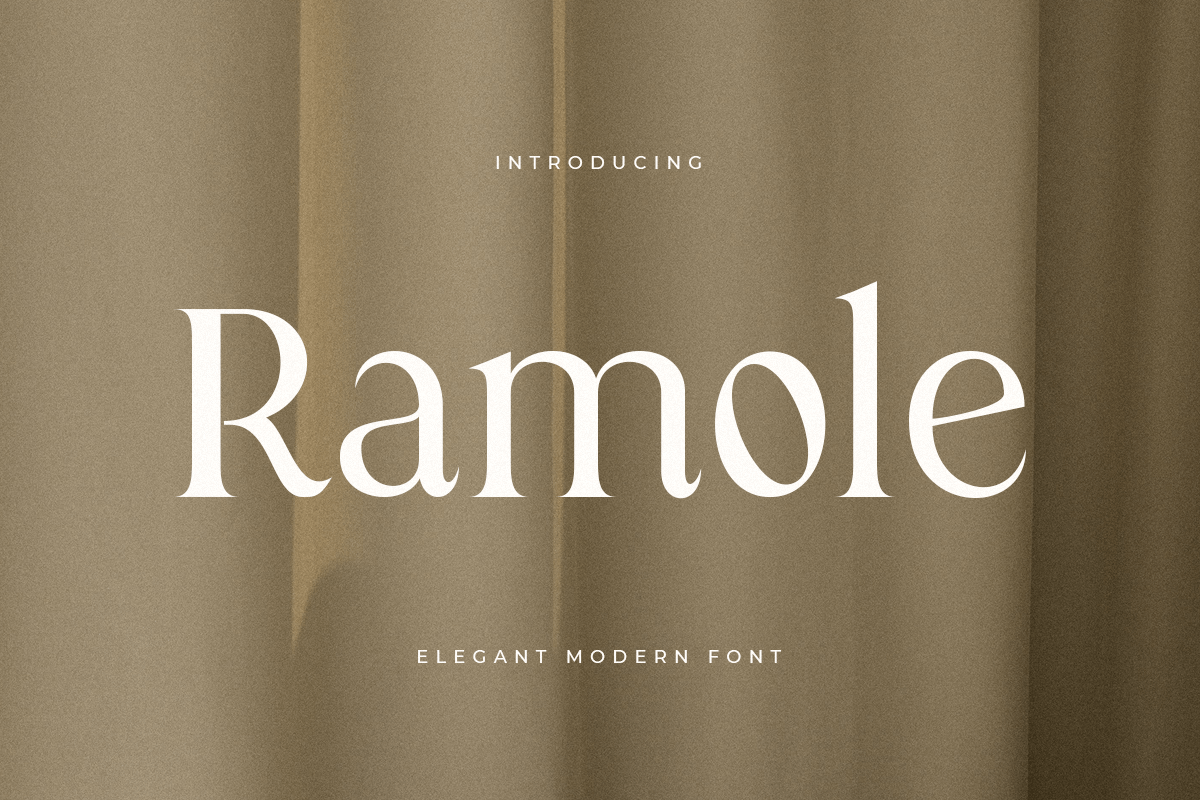
Ramole
-Elegant Modern Serif Font
Ramole
Ramole is a Elegant Modern Serif Font
A new Serif font that we created special for logo and branding needs, with extra unique shape and ligatures that will add your brand value. It so nice to leverage designer or product owner that need solutions to make their design look more gorgeous and modern. And specially for Ramole font, We prepared any alternate characters to help you create unlimited variations for your creative needs specially for logotype or wordmark.